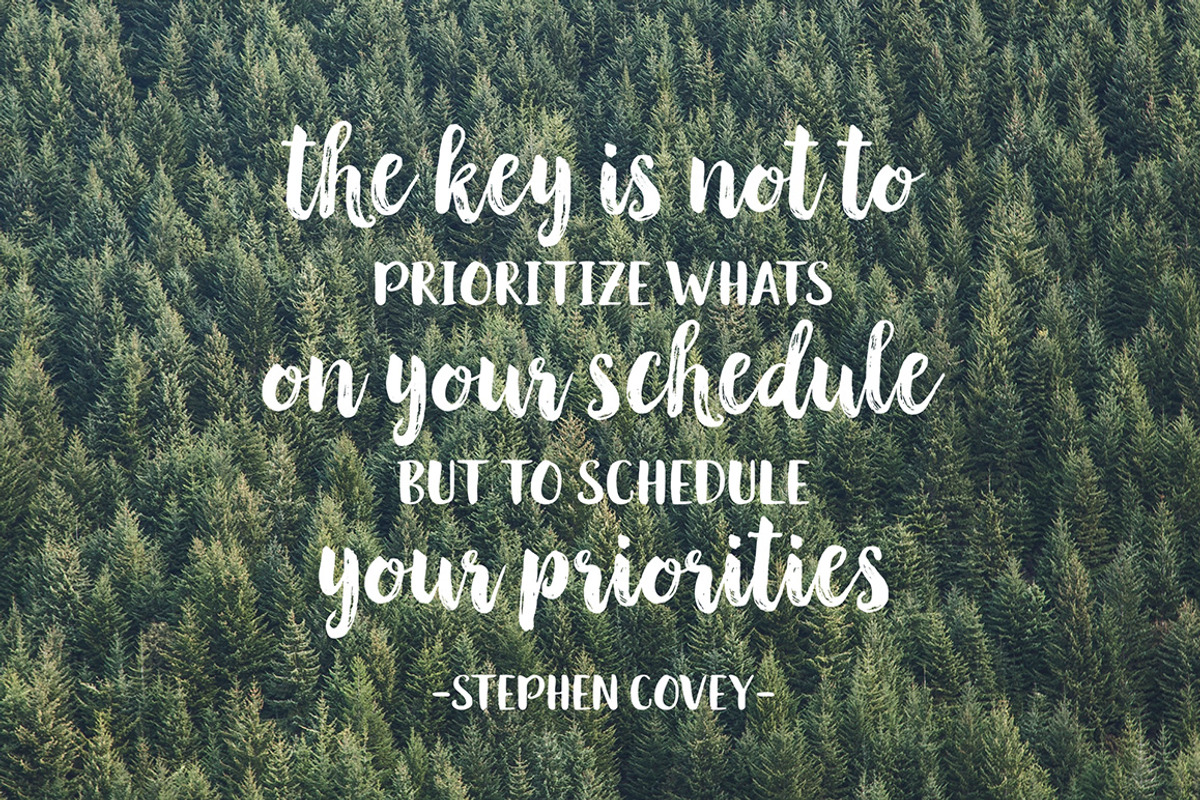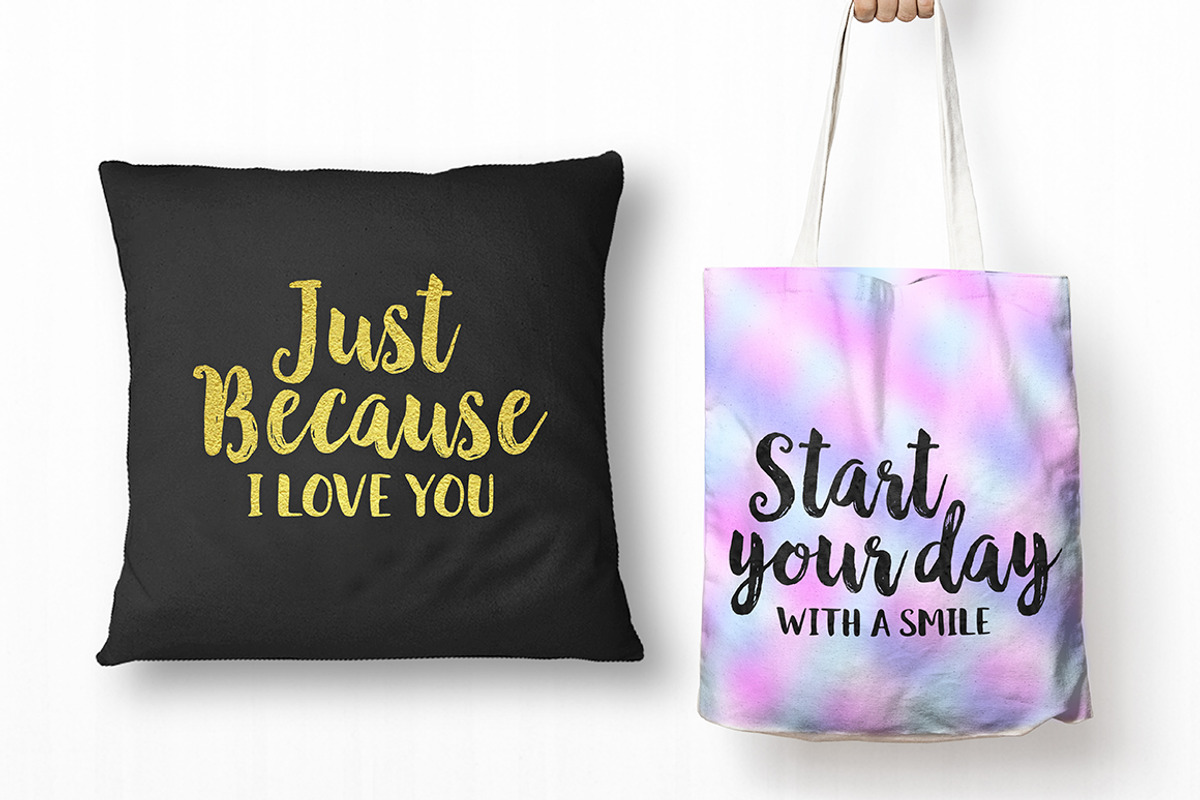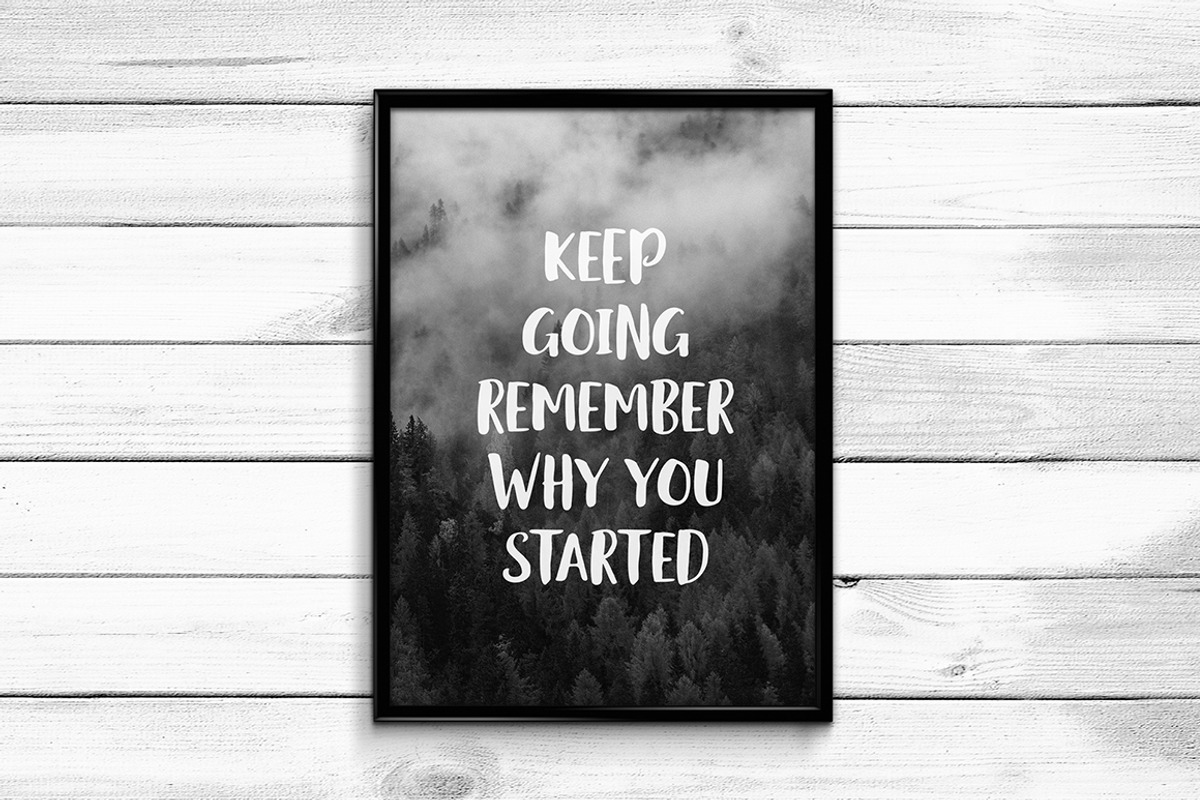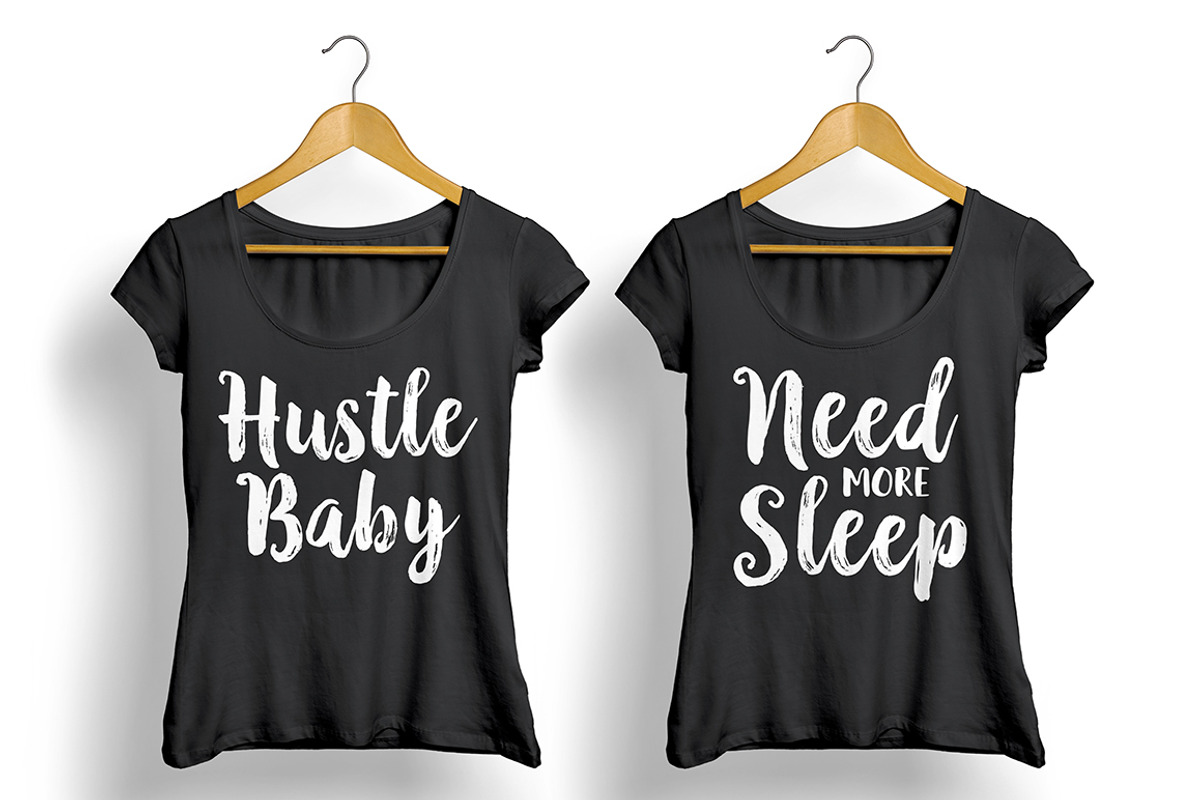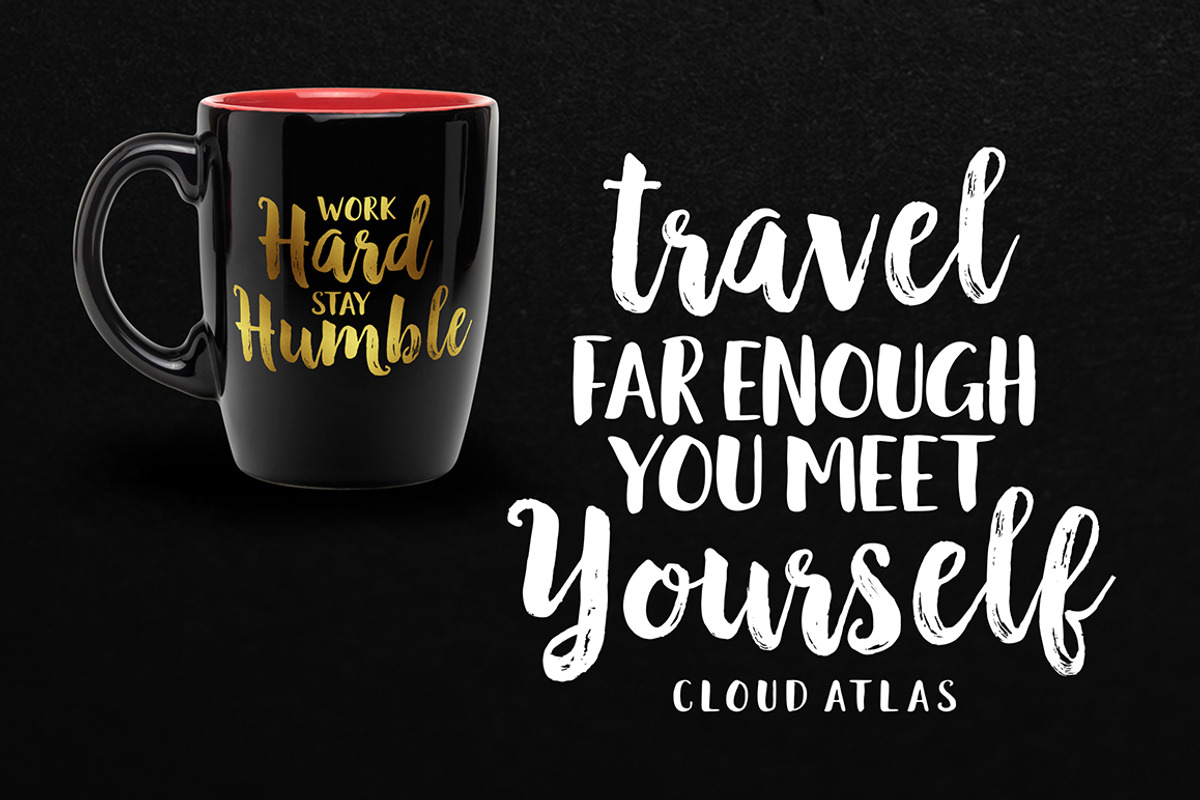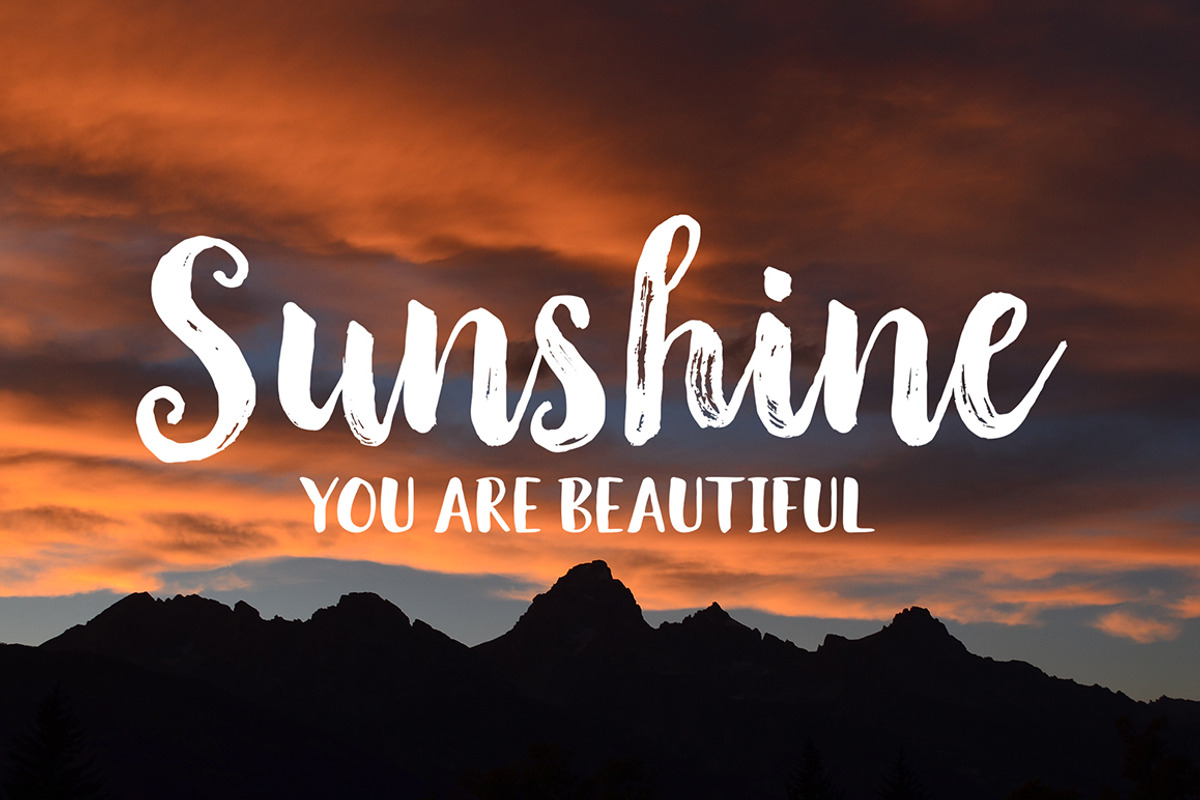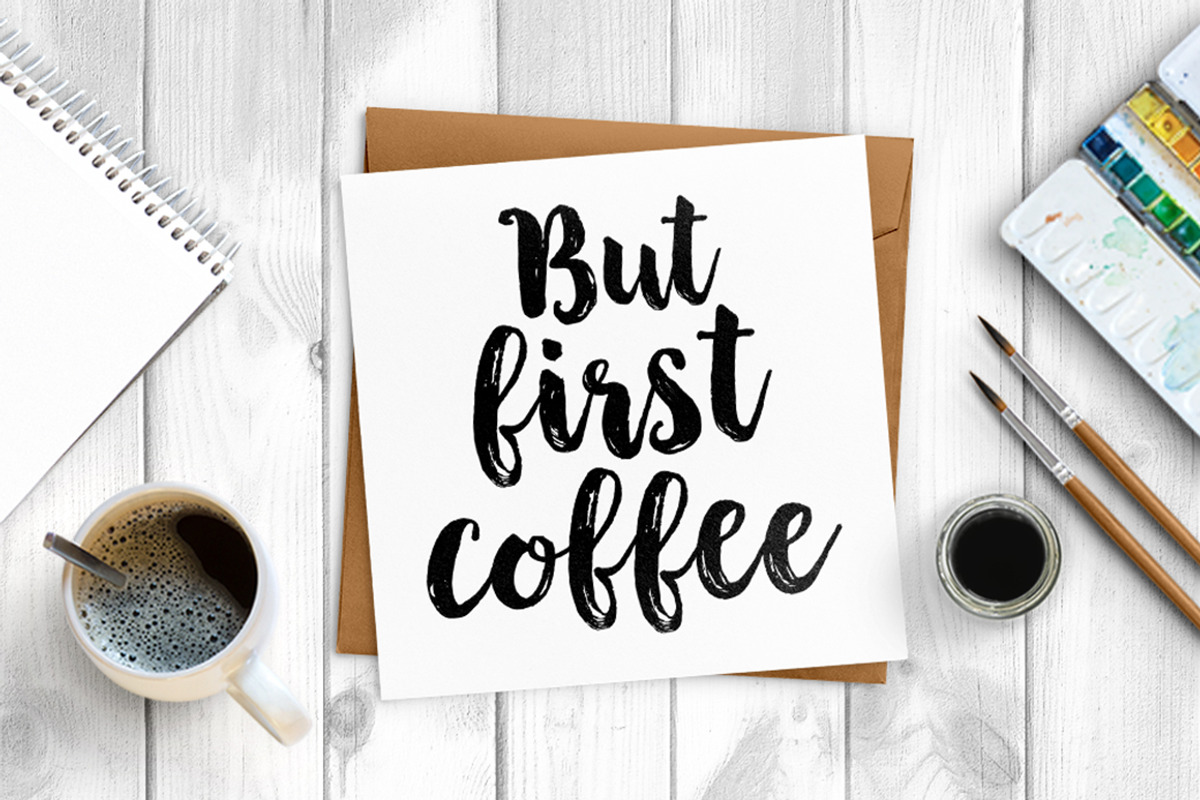
Black & White Font Duo
Black & White Font Duo by Seniors is a font selected for branding, posters, packaging, typography.
- Contains a complete set of lowercase, uppercase, alternates, ligatures, punctuation, numbers, and multilingual support.
- Contains a complete set of lowercase with normal baseline, uppercase with irregular baseline, ligatures, punctuation, numbers, and multiling
Why Black & White Font Duo is worth a look
Black & White Font Duo by Seniors fits naturally into Branding, posters, packaging, typography.